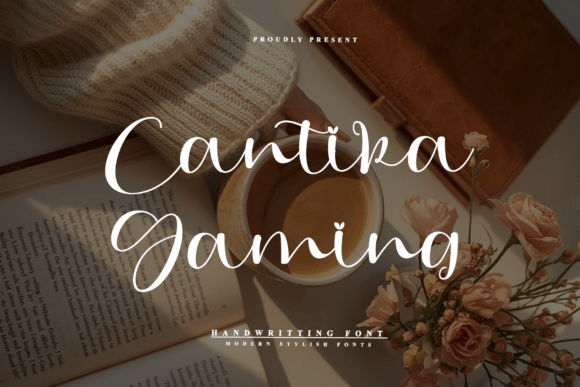
The Ultimate Guide to Cantika Gaming Font: A Timeless Choice for Designers
I’ll never forget the moment I stumbled upon Cantika Gaming Font while working on a logo design project for a gaming client. I had tried countless fonts, but none seemed to capture the perfect blend of playfulness and sophistication. That was until I laid eyes on Cantika Gaming – a lovely and timeless handwritten font that instantly elevated my design. In this article, I’ll share my experience with Cantika Gaming, its features, and how to make the most of it in your designs.
A Personal Review of Cantika Gaming Font
What I Love About Cantika Gaming ✨
- Unique and beautiful touch to every letter, making it perfect for eye-catching logos and branding ✅
- Timeless handwritten feel that works well for quotes, posters, and social media graphics 📝
- Highly legible, even at smaller font sizes, making it versatile for various design applications 🔍
- Supports OpenType features, allowing for advanced typography and creative freedom 🎨
- Limited availability of stylistic alternates, which might not offer as much flexibility for some designers ⚠️
- May not be the best fit for very formal or corporate designs, as it leans more towards a playful and creative vibe 😊
A Practical Guide to Using Cantika Gaming Font
- Experiment with OpenType features, such as ligatures and stylistic alternates, to add a creative touch to your design.
The Story Behind Cantika Gaming Font
Cantika Gaming Font was designed with the goal of creating a unique and timeless handwritten font that would capture the essence of playfulness and sophistication. The designer aimed to craft a font that would be versatile enough to work well in various design applications, from logos and branding to quotes and social media graphics.
Q: What makes Cantika Gaming Font unique?
A: Cantika Gaming Font stands out due to its unique and beautiful touch to every letter, making it perfect for eye-catching designs.
Q: Does Cantika Gaming Font support OpenType features?
A: Yes, Cantika Gaming Font supports OpenType features, allowing for advanced typography and creative freedom.
Q: Can I use Cantika Gaming Font in digital and print designs?
A: Absolutely! Cantika Gaming Font is versatile and works well in both digital and print designs, making it a great addition to your font library.